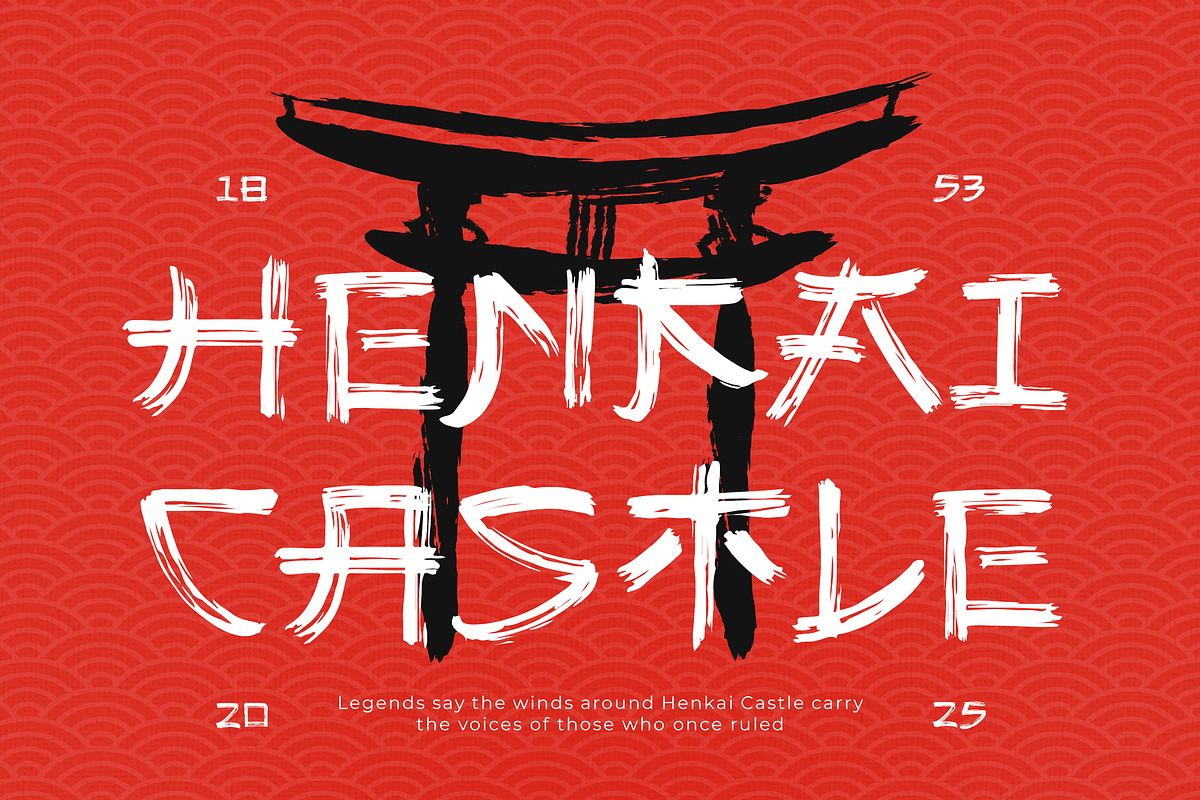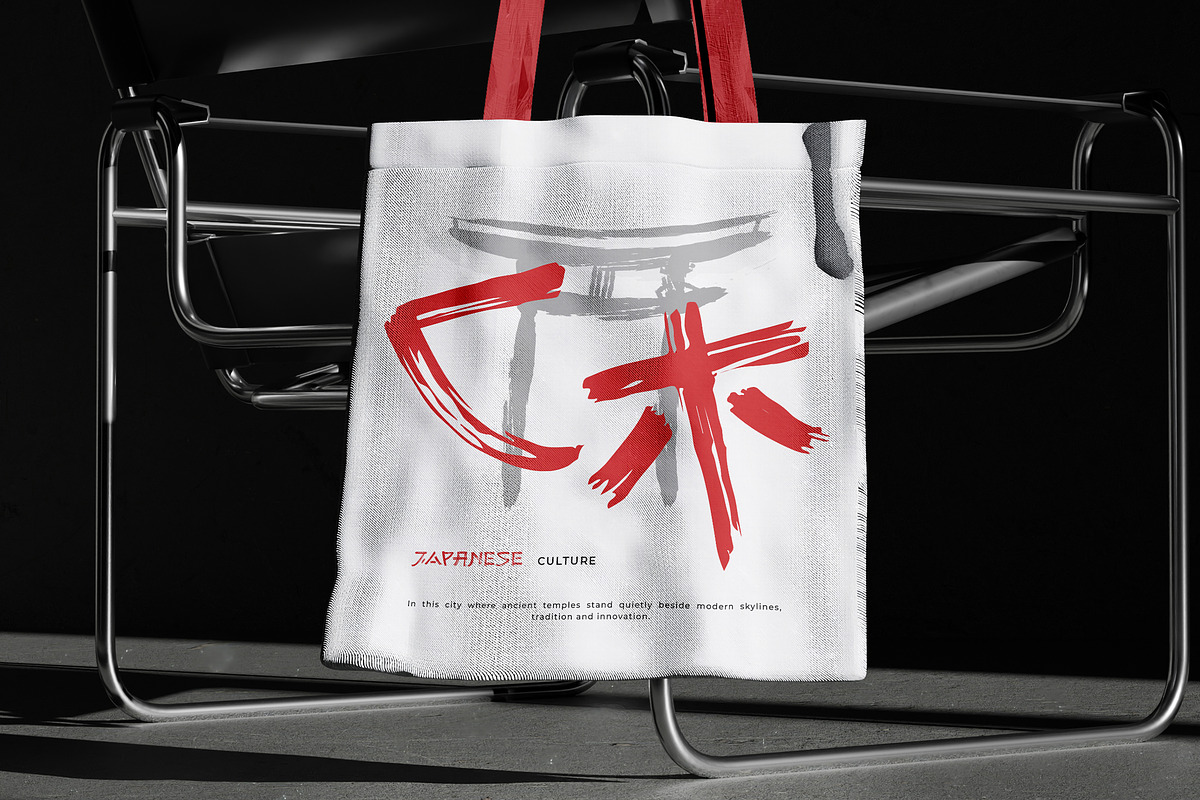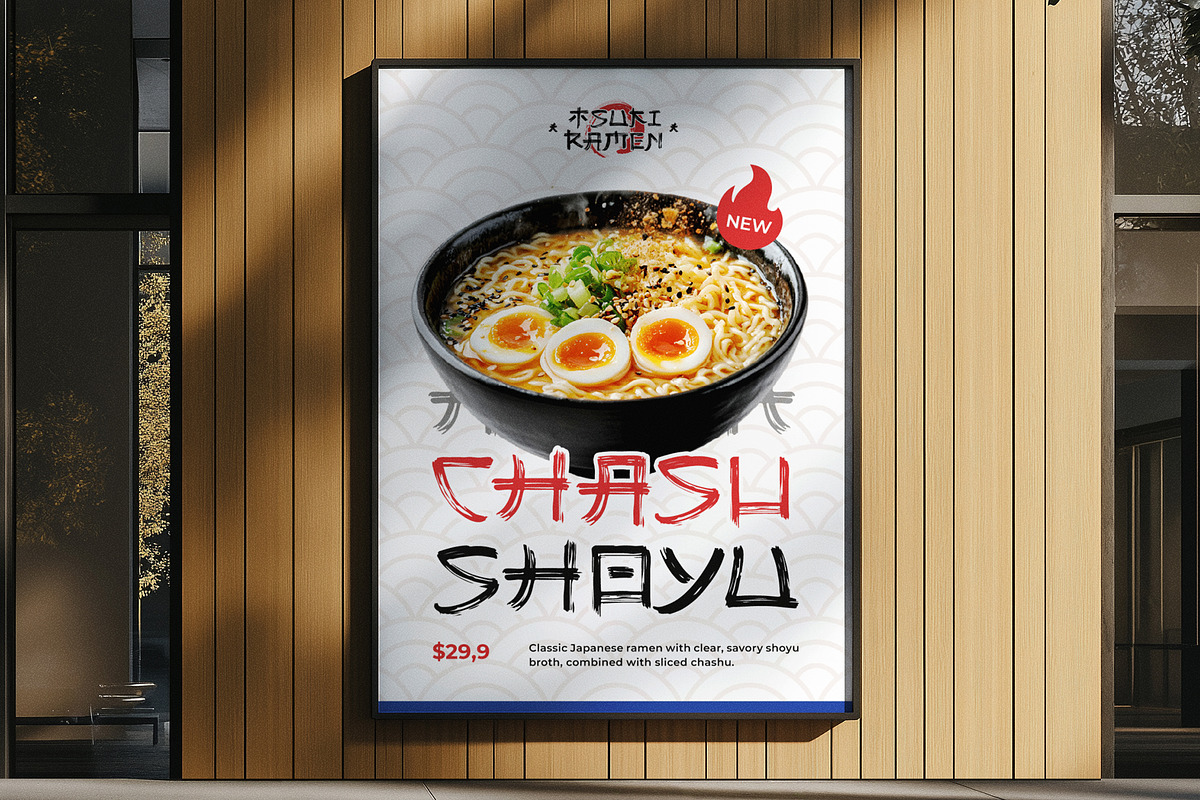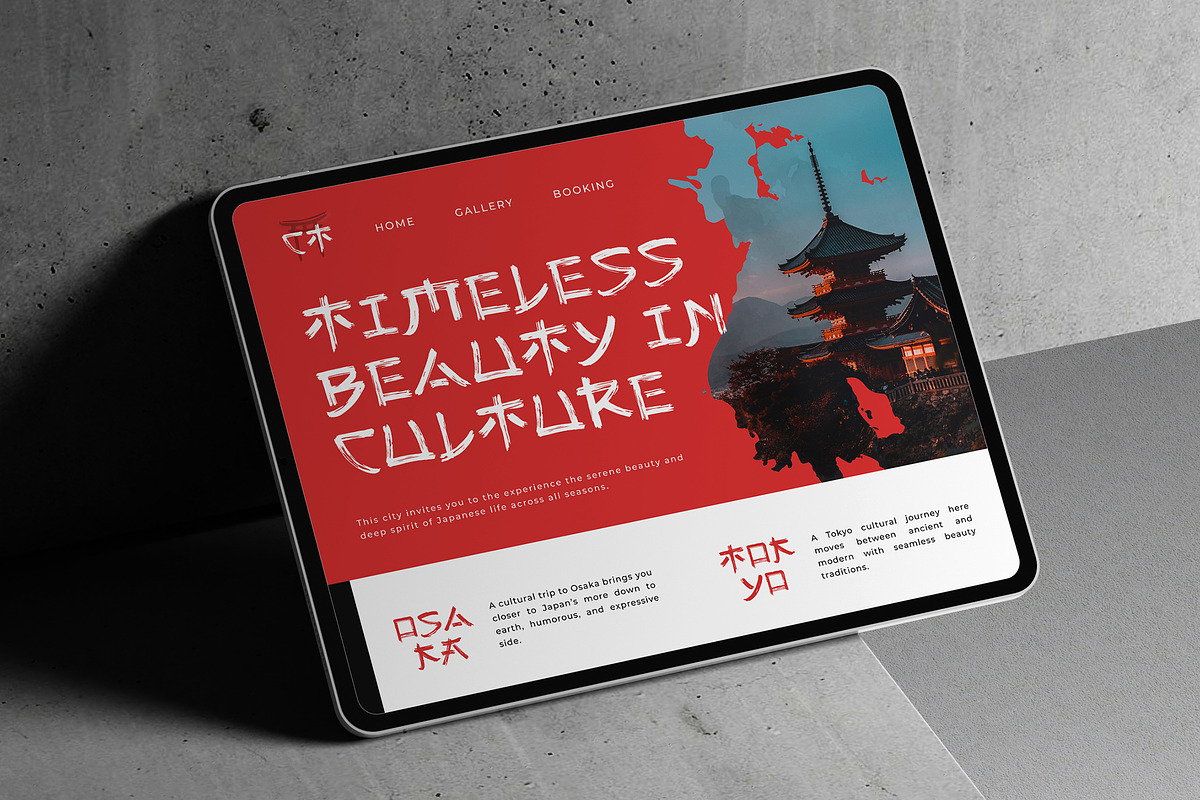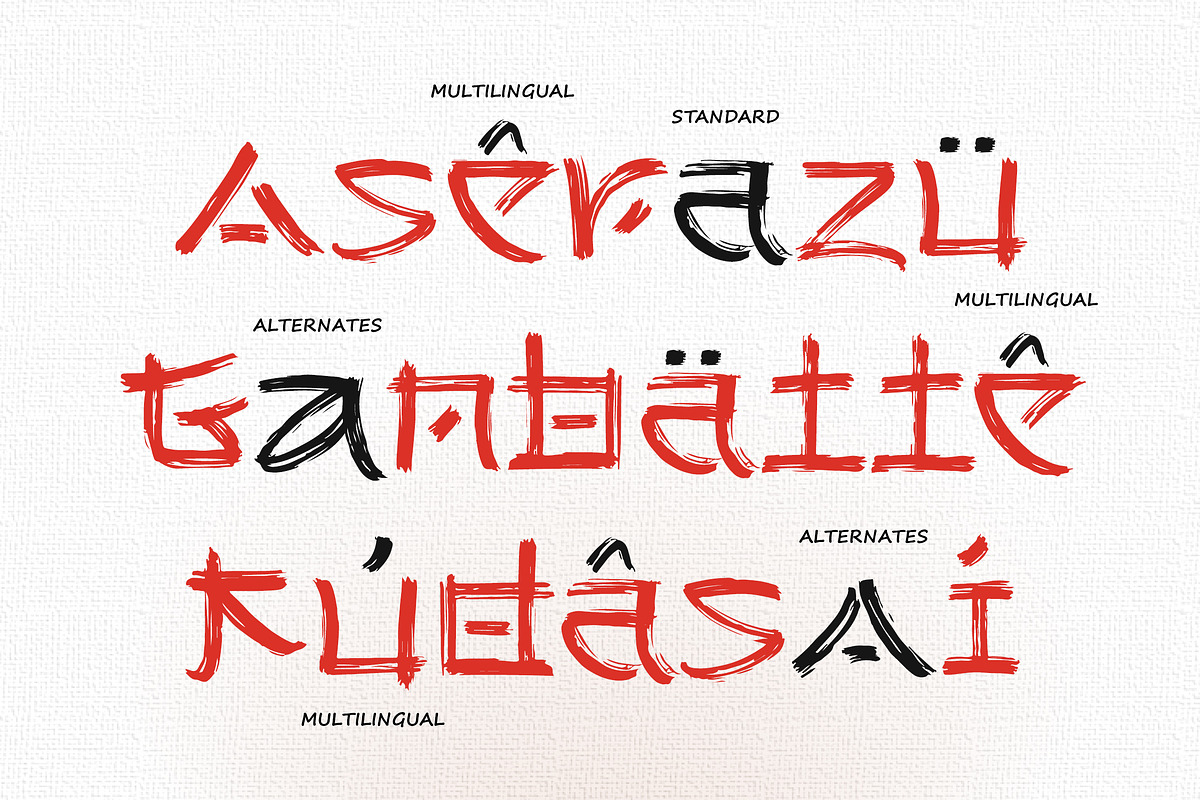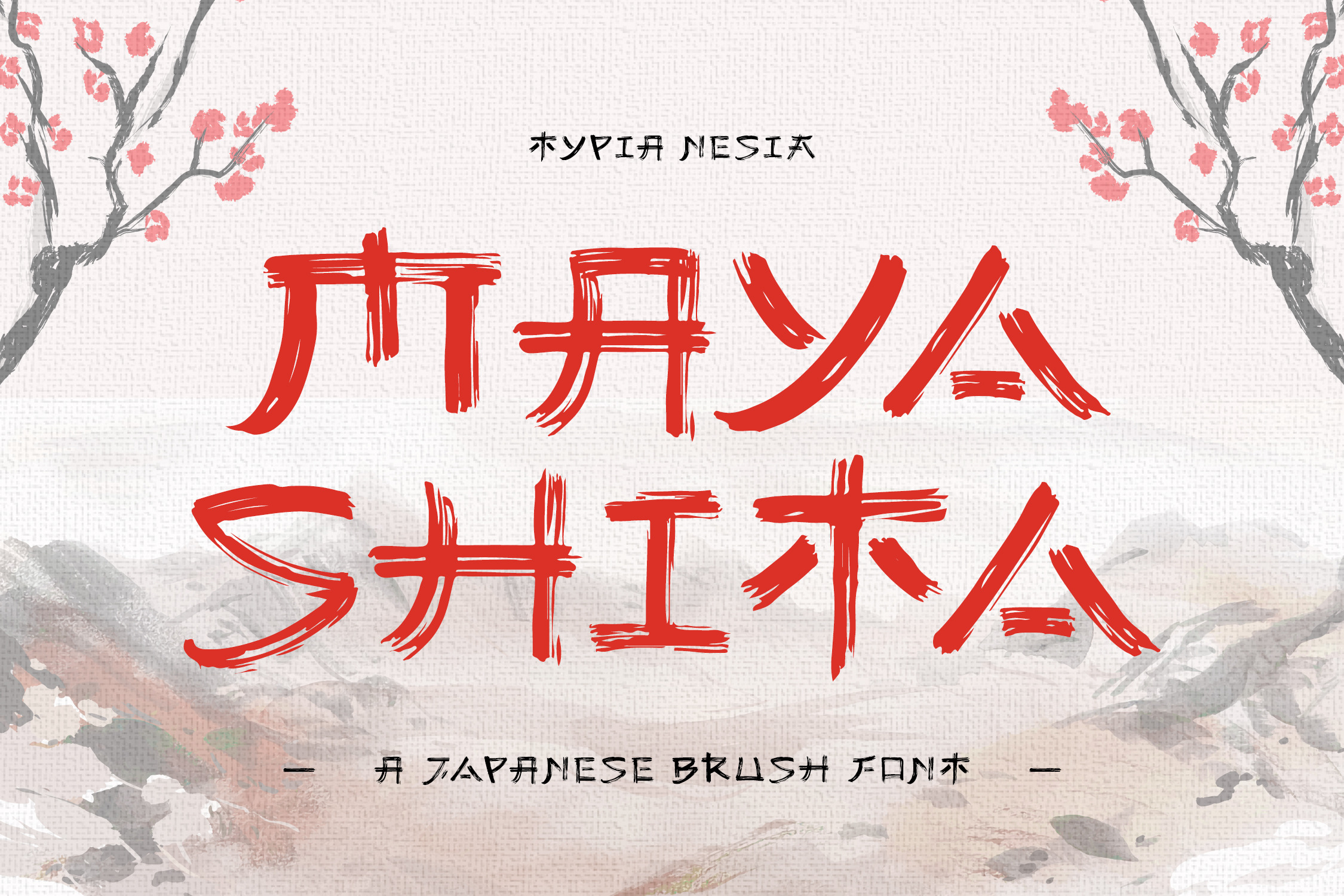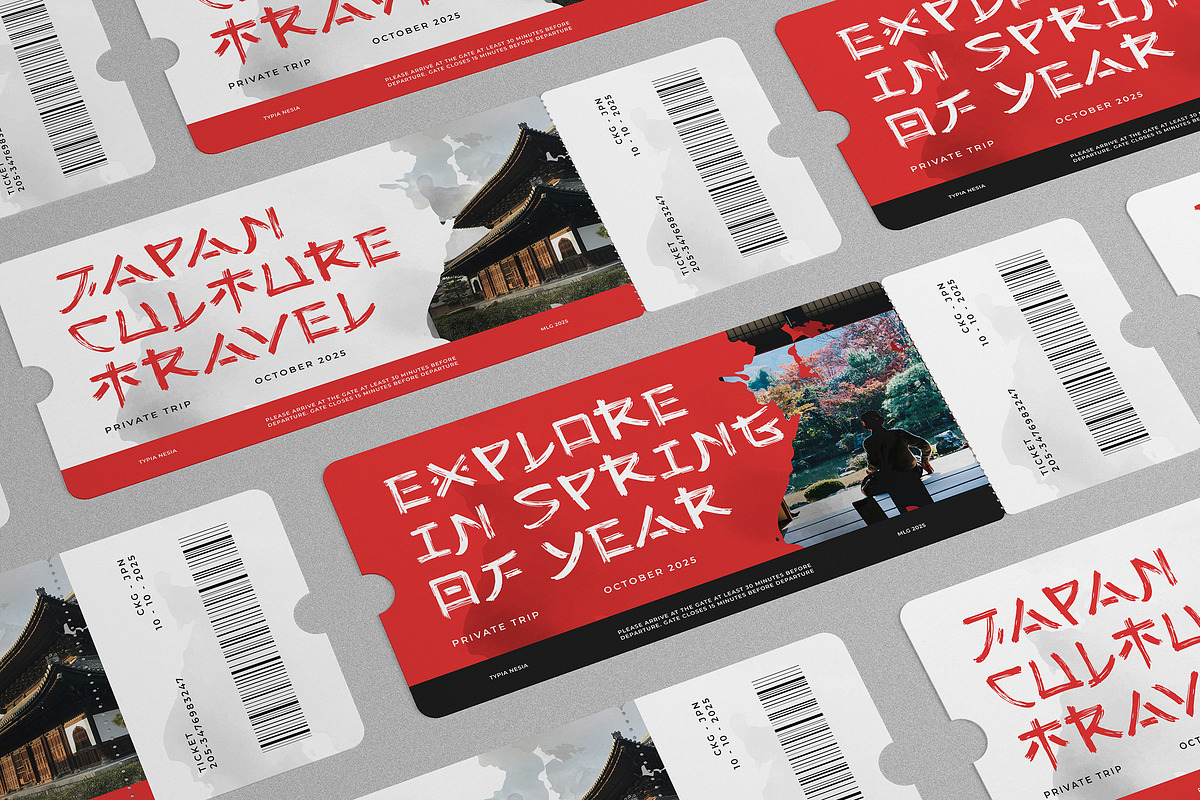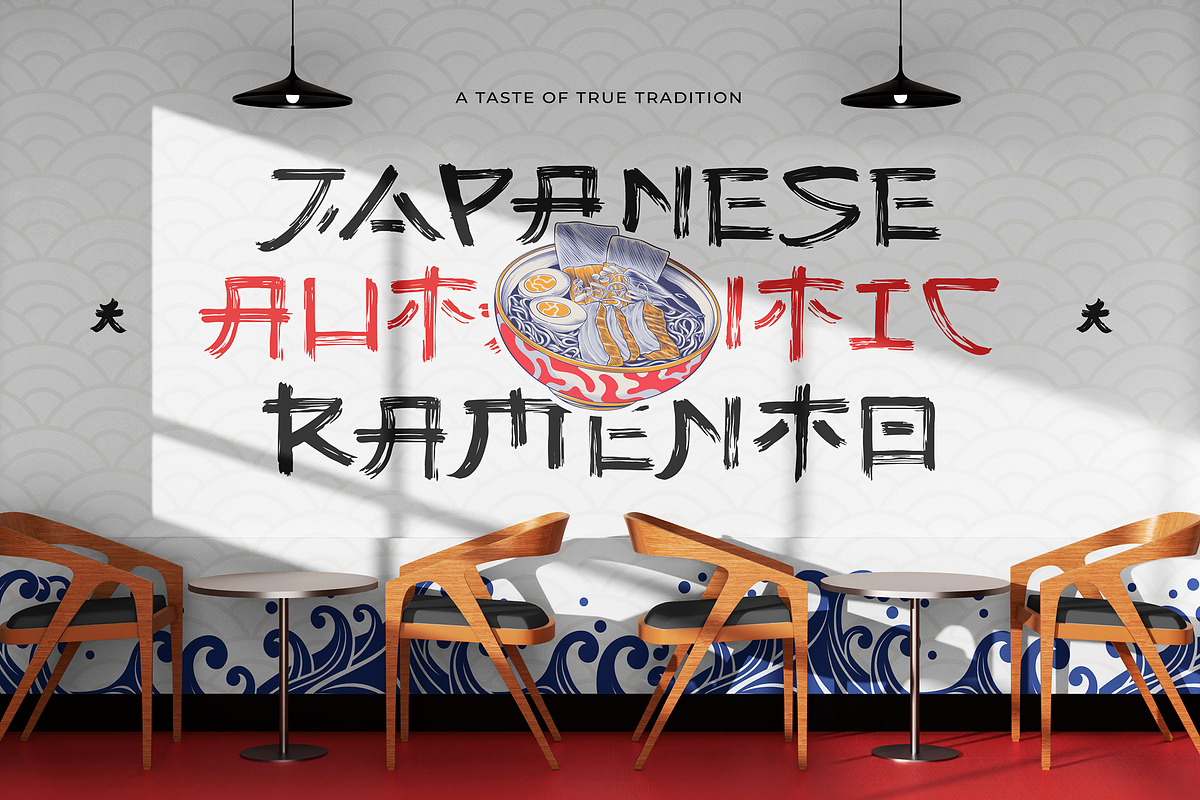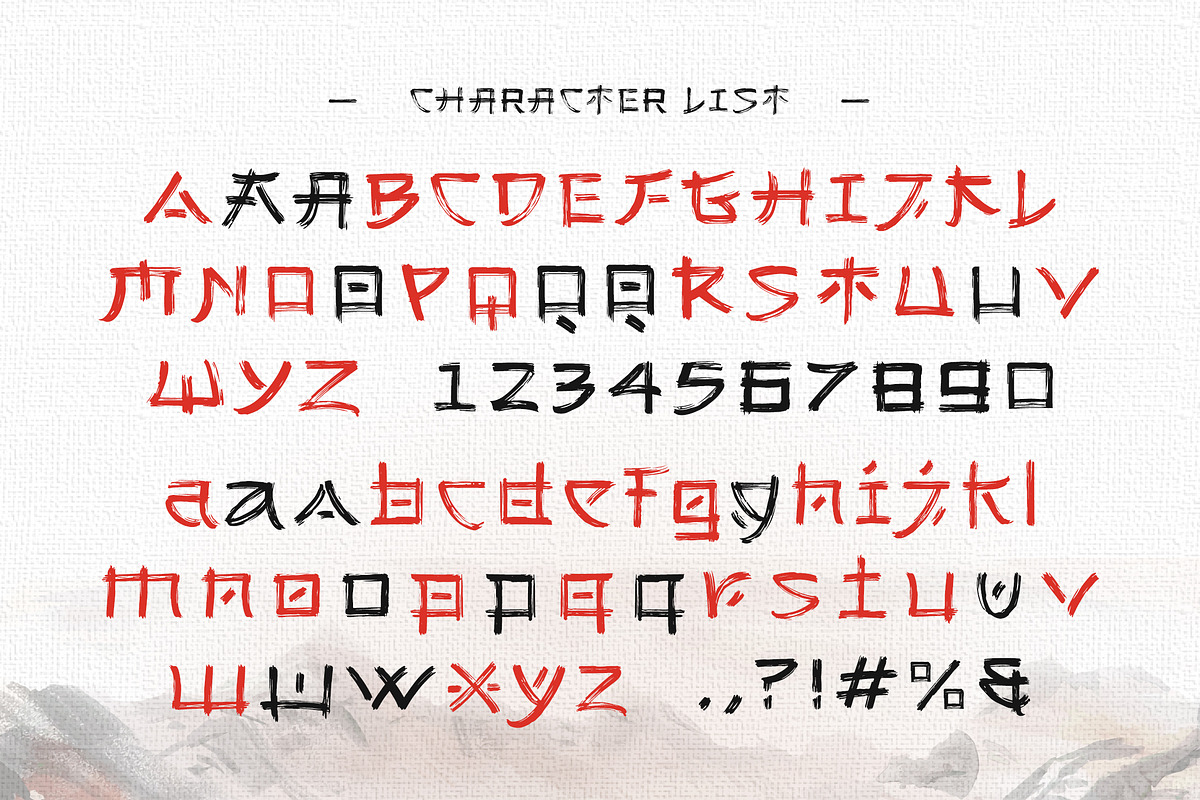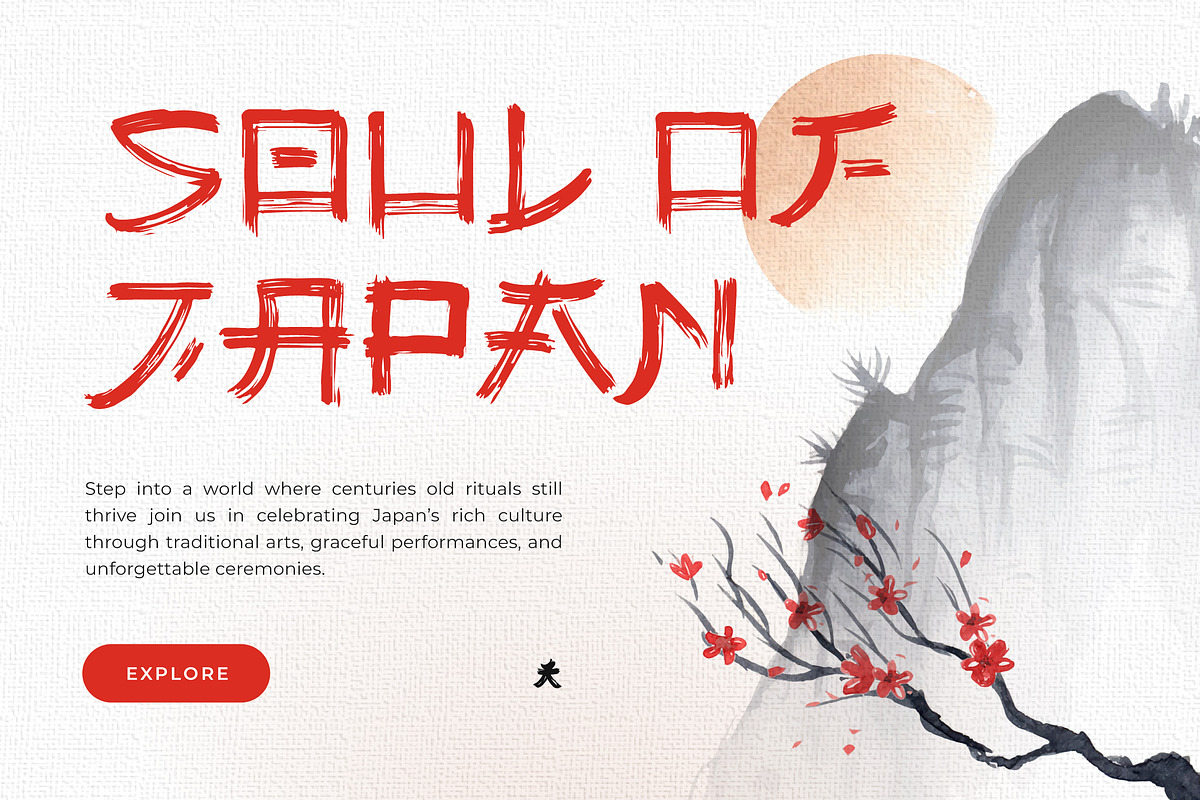
Mayashita - Japanese Brush Font
Mayashita - Authentic Japanese Brush Typeface - Natural Texture Organic & Expressive Designs.
Mayashita is an authentic Japanese brush font that captures the raw, natural texture and dynamic energy of traditional hand-painted lettering. With its distinctive rough edges and fluid, expressive strokes, this typeface evokes the genuine feel of sumi-e calligraphy. Perfect for food branding, streetwear apparel, artistic posters, packaging, merchandise, logo and designs seeking an Asian-inspired, handmade, or bold visual identity, Mayashita infuses your projects with a unique blend of casual charm and powerful artistic flair.